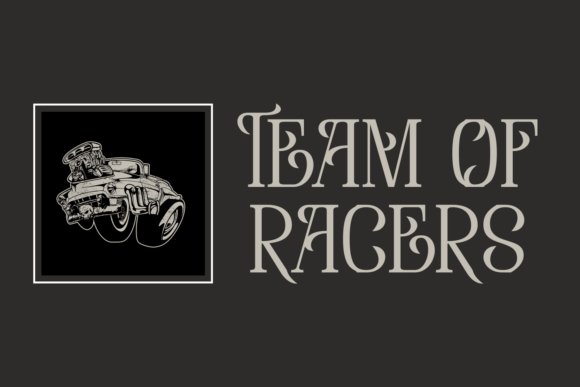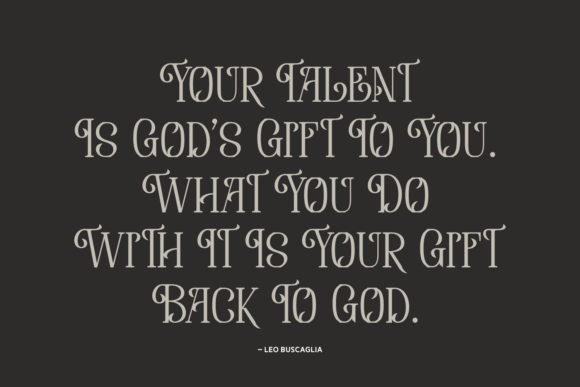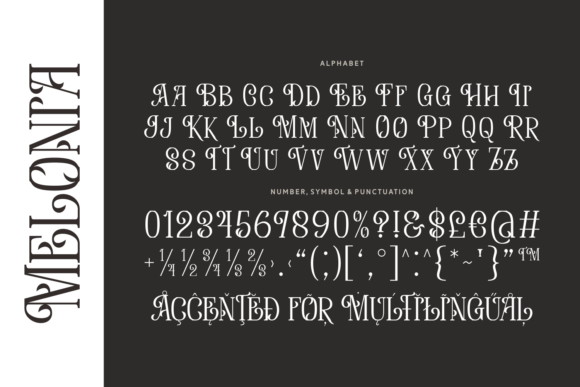
Introduction to Melonia Font
Have you ever found yourself scrolling through design inspiration boards, searching for that perfect font to elevate your creative project? I know I have. The hunt can be endless, but sometimes, it’s the discovery of a unique and stylish font that sparks the magic. For me, that moment came when I stumbled upon the enchanting Melonia Font. Its ornate curves and gothic charm immediately caught my attention, and I knew I had to learn more.
As a designer, I can attest to the value of having a versatile and high-quality design resource like the Melonia Font at your disposal. With its striking serifs and modern readability, this font is perfect for a wide range of creative projects, from vintage posters to fantasy-themed book covers.
Key Features of Melonia Font
• High-quality, elegant design perfect for creative projects and designs.
• Features a transparent background, ideal for designers who require a clean and minimalist look.
• High-resolution design (up to 1024×1024 pixels) ensuring crisp and clear text display, even at larger sizes.
• Designed to be highly legible and versatile, suitable for a wide range of applications, from print materials to digital displays.
• Supports a wide range of languages, making it a great choice for multilingual creative projects.
Honest Review: Melonia Font
As a designer, I’m always on the lookout for high-quality design resources that can elevate my creative projects. The Melonia Font caught my attention, and I decided to give it a try. Here’s my honest review.
• ✨ The Melonia Font is incredibly versatile, making it suitable for a wide range of design projects, from branding to editorial content.
• ✨ The transparent background feature is a great bonus, allowing for seamless integration with other design elements.
• ⚠️ The font could benefit from more ligature options to improve readability in longer text blocks.
• ⚠️ The font may not be as legible in smaller sizes, which could be a concern for designers who need to use it in tight spaces.
Overall, I’m impressed with the Melonia Font’s potential, but it’s not without its limitations. If you’re looking for a high-quality, free design resource for your creative project, the Melonia Font is definitely worth considering. Just be mindful of its limitations and use it accordingly.
How to Use Melonia Font
Melonia Font is a high-quality design resource ideal for creative projects. This free download features a transparent background, making it versatile for various applications.
Tips for Getting the Most Out of Melonia Font
Experiment with different font sizes and styles to create visually appealing designs. Use the transparent background to create custom graphics and logos.
Melonia Font is ideal for creative projects, such as:
• Graphic design
• Logo creation
• Social media graphics
• Business cards
Alternatives to Melonia Font
Lato is a high-quality, sans-serif font perfect for creative projects. It’s a great design resource for logos, headings, and body text. Lato is available for free download and can be used for personal or commercial projects. When to use: Lato is ideal for modern, clean designs where a clear and readable font is required. It compares to Melonia Font by offering a more minimalist approach and a wider range of weights.
Montserrat is a geometric sans-serif font designed for urban environments. It’s a great choice for creative projects that require a high-quality, urban feel. Montserrat is available for free download and can be used for personal or commercial projects. When to use: Montserrat is ideal for designs that require a strong, modern feel. It compares to Melonia Font by offering a more geometric approach and a wider range of weights.
Merriweather is a classic, serif font perfect for creative projects that require a high-quality, traditional feel. It’s a great design resource for body text, headings, and titles. Merriweather is available for free download and can be used for personal or commercial projects. When to use: Merriweather is ideal for designs that require a classic, timeless feel. It compares to Melonia Font by offering a more traditional approach and a wider range of weights.